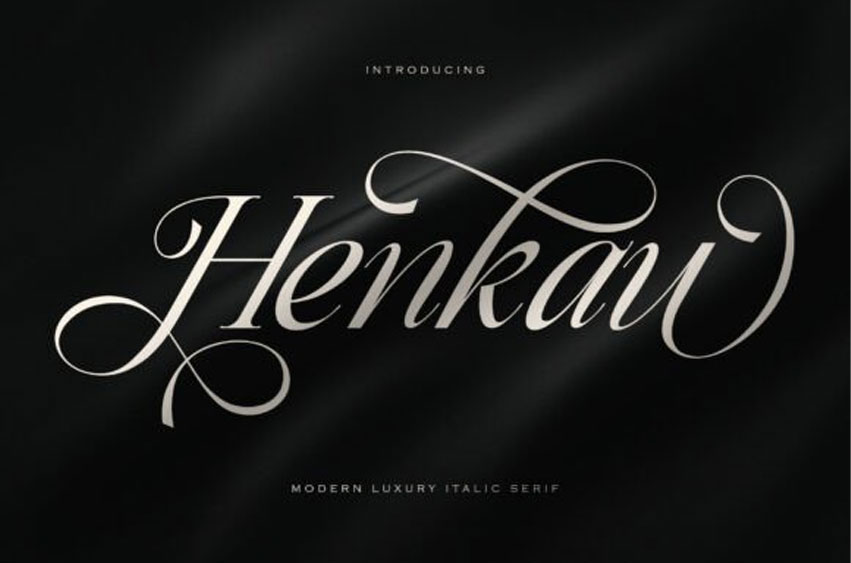
Henkau Font is a luxurious italic serif font designed for those who value refined and elegant typography. With its smooth curves and graceful letterforms, Henkau reflects exclusivity and high taste.
Influenced by classic calligraphy with a contemporary twist, it’s perfect for premium branding, fashion features, and upscale invitations.